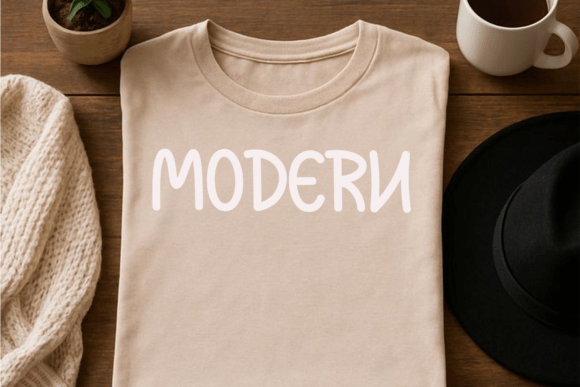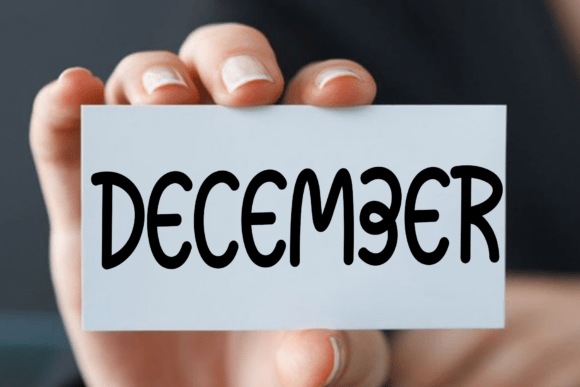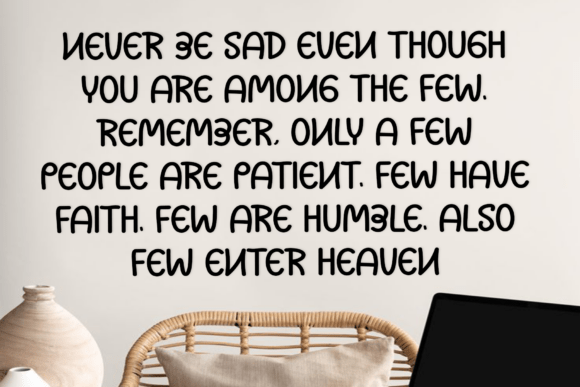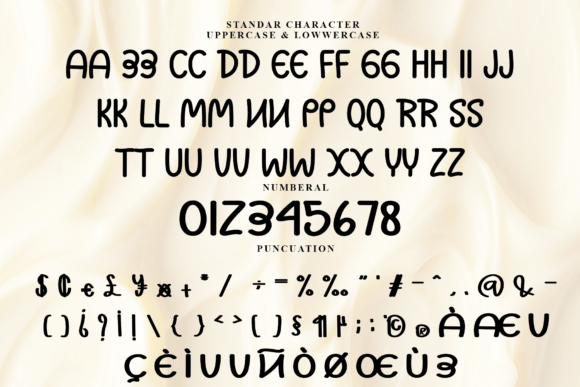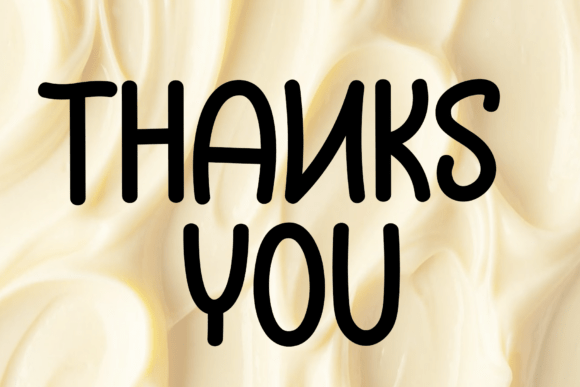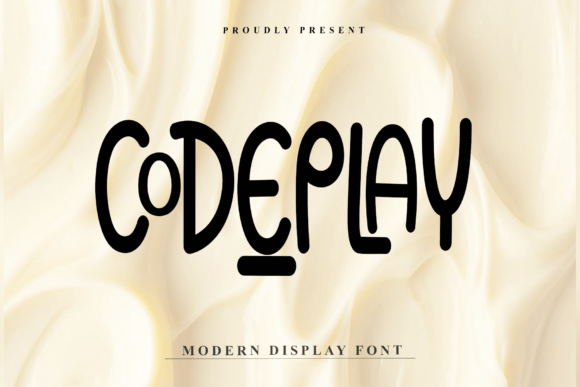
Introducing Codeplay Font: A Friendly and Playful Display Font
In the world of typography, fonts play a crucial role in conveying the tone and personality of a brand. For designers and crafters looking for a font that exudes a sense of friendliness and playfulness, Codeplay Font is an excellent choice. Designed with a soft, hand-sculpted personality, Codeplay Font is a delightful display font that is perfect for tech-oriented youth branding, educational app interfaces, creative product packaging, and cheerful social media headers.
Design Characteristics of Codeplay Font
Codeplay Font features thick, vertically elongated letterforms with a consistent monolinear weight and perfectly rounded terminals. This unique design gives the font a distinctive personality that is both organized and creative. The typeface also boasts unique character shifts, such as the underlined lowercase ā€œeā€, which add to its playful and cheerful visual flow.
Key Features of Codeplay Font
• Soft, hand-sculpted personality: Codeplay Font has a warm and inviting feel that makes it perfect for brands looking to connect with their audience on a personal level.
• Thick, vertically elongated letterforms: The font’s distinctive letterforms give it a tall and slender appearance that is both elegant and sophisticated.
• Consistent monolinear weight: The font’s consistent weight ensures that it remains clear and legible, even at smaller sizes.
• Perfectly rounded terminals: The font’s rounded terminals add a touch of friendliness and approachability to the typeface.
• Unique character shifts: The font’s unique character shifts, such as the underlined lowercase ā€œeā€, give it a playful and creative visual flow.
Use Cases for Codeplay Font
Codeplay Font is a versatile typeface that can be used in a variety of contexts. Here are some use cases where Codeplay Font shines:
• Tech-oriented youth branding: Codeplay Font is perfect for brands looking to connect with a young audience. Its playful and cheerful personality makes it an excellent choice for tech startups, educational apps, and online platforms.
• Educational app interfaces: The font’s clear and legible design makes it an excellent choice for educational app interfaces, where readability is crucial.
• Creative product packaging: Codeplay Font’s unique personality makes it a great choice for creative product packaging, where brands want to stand out on store shelves.
• Cheerful social media headers: The font’s playful and cheerful personality makes it perfect for social media headers, where brands want to make a bold statement.
Tips for Using Codeplay Font
Here are some tips for using Codeplay Font effectively:
• Use it as a display font: Codeplay Font is designed as a display font, so use it to make a bold statement. It’s perfect for headings, titles, and social media headers.
• Pair it with a sans-serif font: Codeplay Font pairs well with sans-serif fonts, which provide a clean and modern contrast to its playful personality.
• Experiment with colors: Codeplay Font looks great in bright and bold colors, so don’t be afraid to experiment and find the perfect color scheme for your brand.
Codeplay Font is a friendly and playful display font that is perfect for designers and crafters looking for a typeface that exudes a sense of friendliness and creativity. Its unique design characteristics, key features, and versatility make it an excellent choice for a variety of use cases. Whether you’re looking to create a tech-oriented youth brand, design an educational app interface, or create cheerful social media headers, Codeplay Font is a delightful choice.